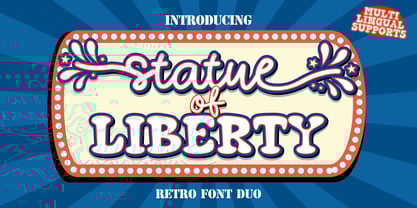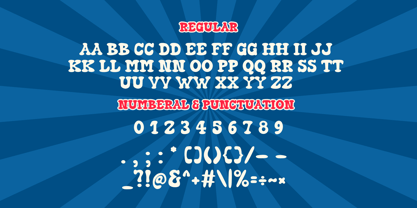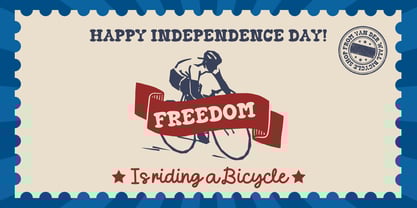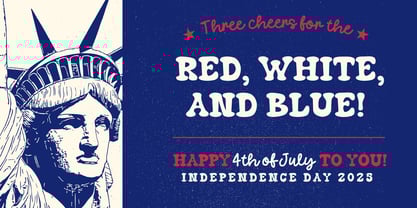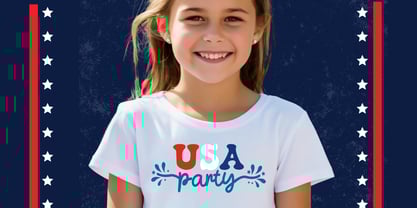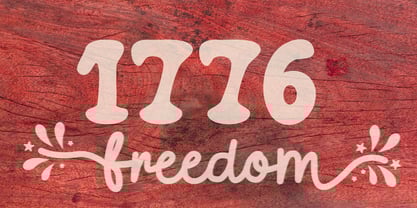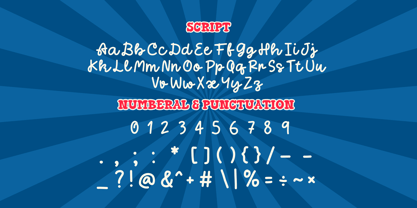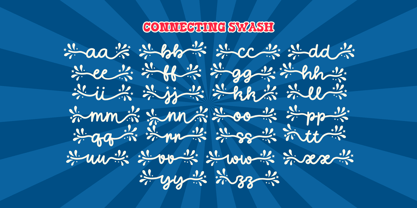
Statue Of Liberty
by Brown Cupple Typeface
The Statue Of Liberty Font Family was designed by Nattha​ Potchanad​ and published by Brown Cupple Typeface. Statue Of Liberty contains 2 styles and family package options.
Statue of Liberty is a stylish retro duo font, combining a display and Script typeface that exudes a cool and groovy aesthetic. Ideal for all your hippie-inspired designs, It embodies playfulness and authenticity and is the perfect choice for all your favorite projects, or even for blog posts, logos, branding, ads, invitations, greeting cards, planners, photo albums, decorations, and much more. Add it to any of your designs, and enjoy the results!